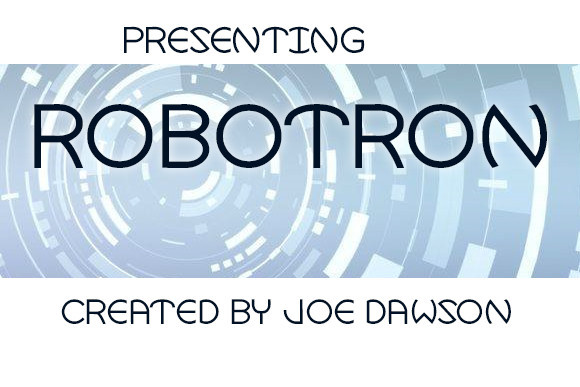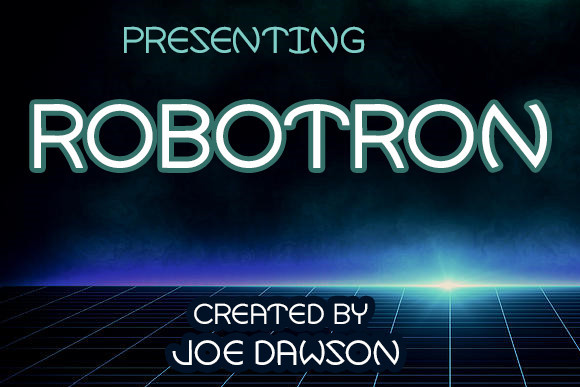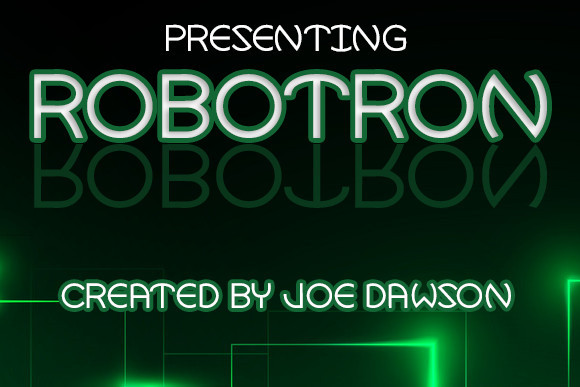
Robotron Font
Robotron is a futuristic sci-fi font with both curves and sharp angles. Perfect for high-tech presentations, space-faring and cyberpunk themes.